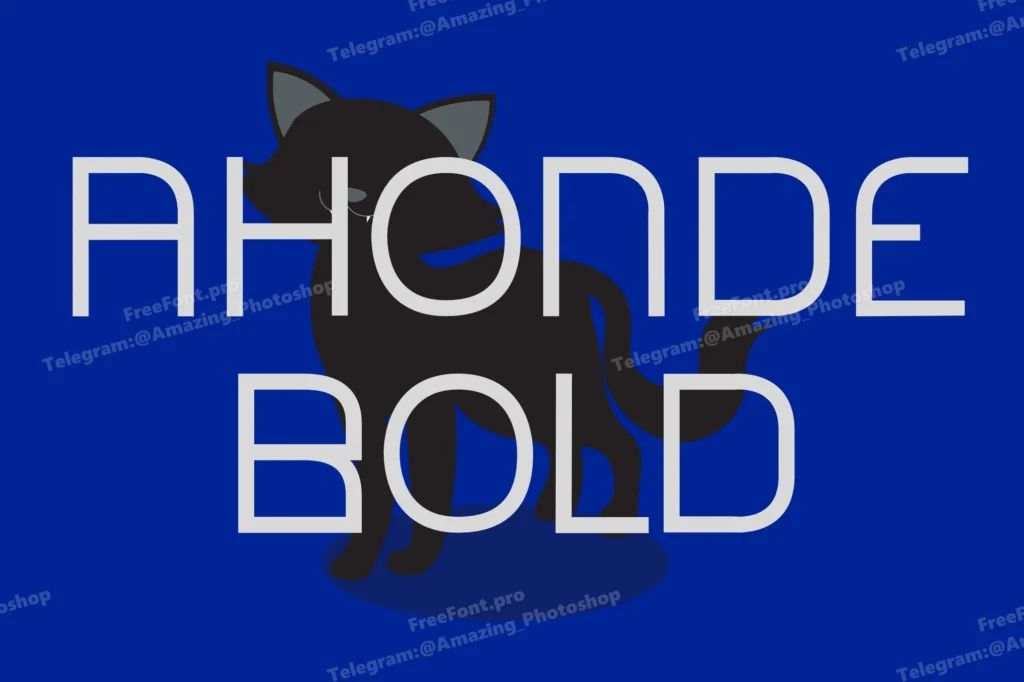
Ahonde Bold
With a blend of sleek sophistication and dynamic energy, this font brings a fresh perspective to your design. Its distinctive character shapes create visual interest without sacrificing legibility, ensuring your poster stands out.